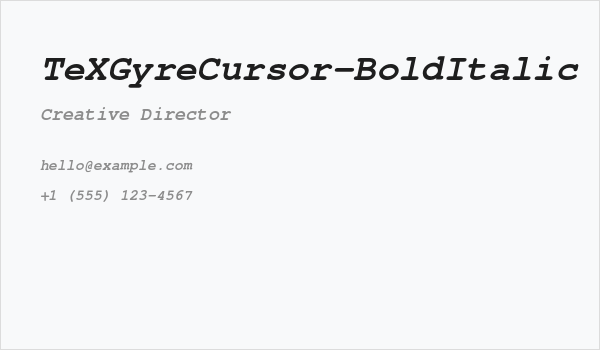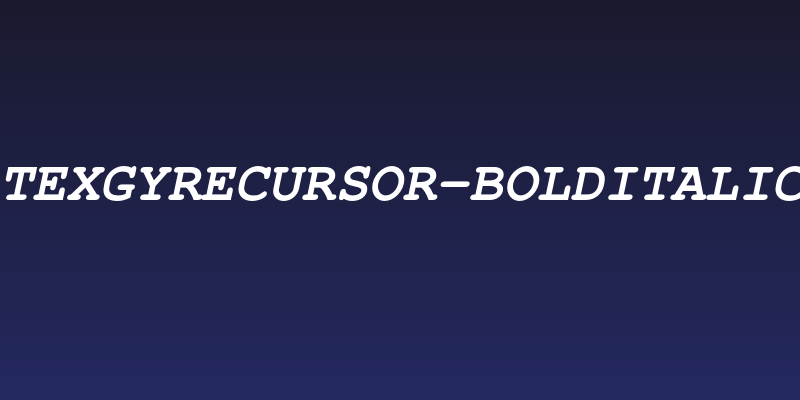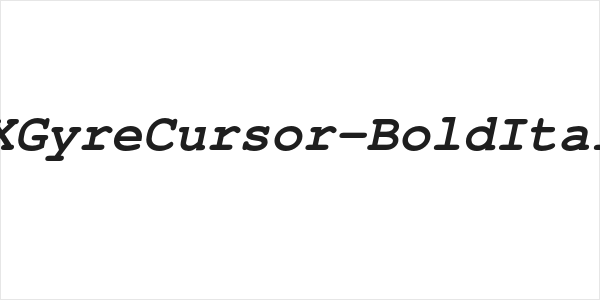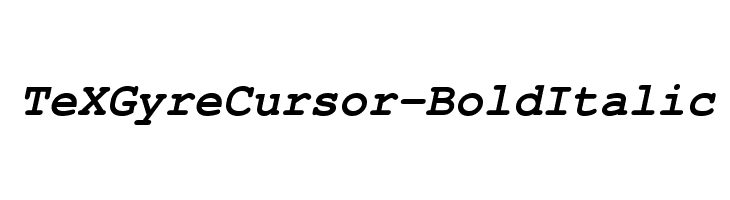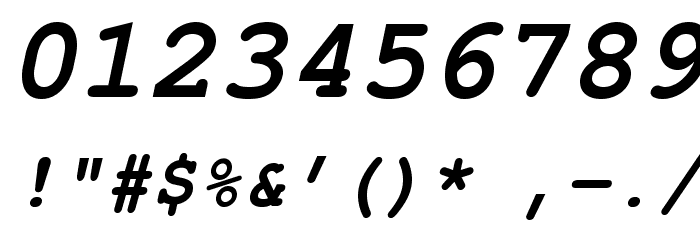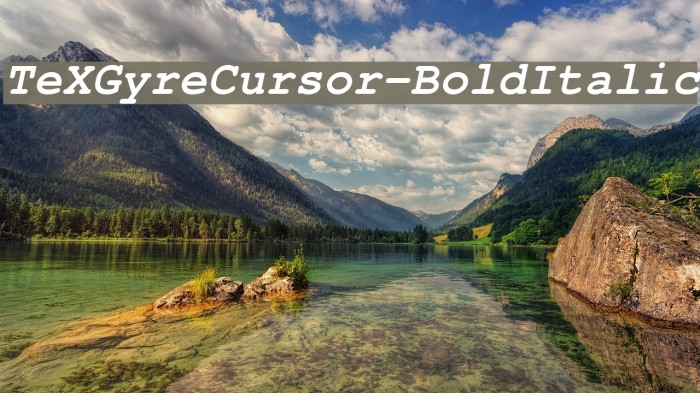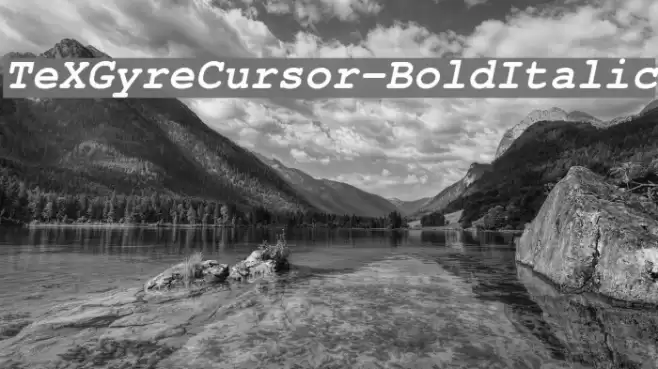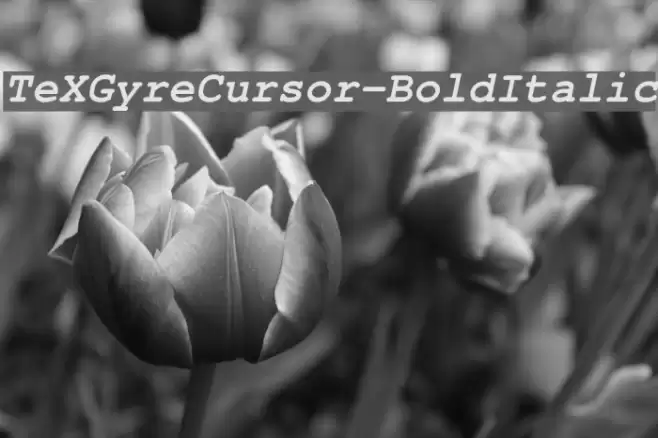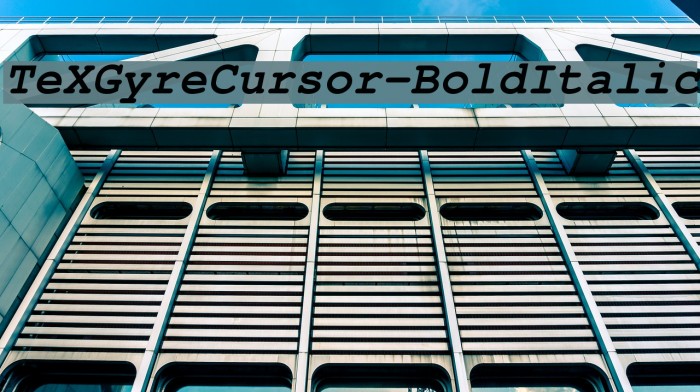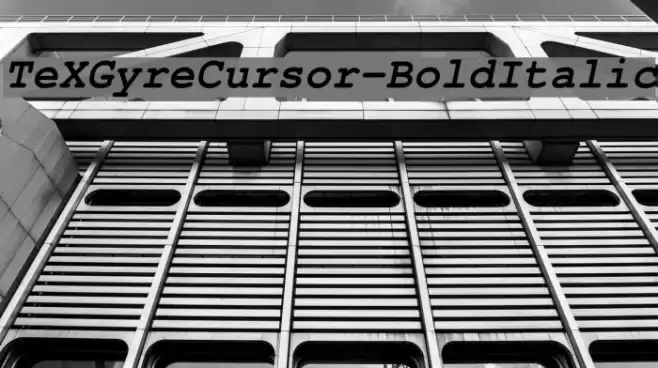
TeXGyreCursor-BoldItalic Font
TeXGyreCursor-BoldItalic Description
This font presents a bold and italicized style with a monospaced design, offering a consistent width for each character. The strokes are thick and uniform, providing a strong visual impact. The italic slant adds a dynamic and forward-moving appearance, making it suitable for emphasis in text. The characters are well-defined, with clear distinctions between each letter and number, ensuring readability. The font includes a full set of uppercase and lowercase letters, numerals, and a variety of special characters, making it versatile for various applications.
| Use Case | Coding, Technical documentation, Emphasized text |
| Proposed Projects | Ideal for coding environments, technical documentation, or any project requiring a monospaced font with emphasis. |